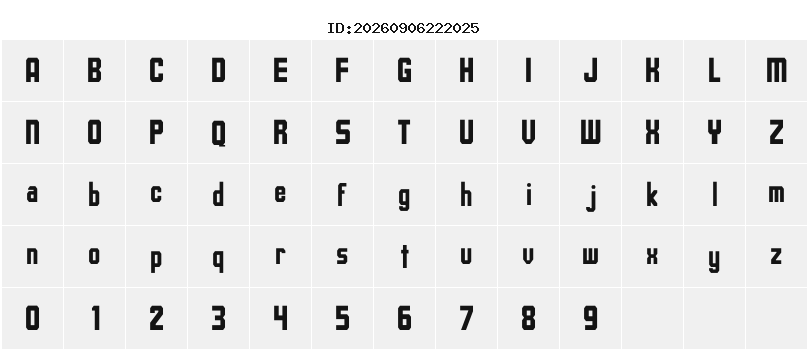
Upsilon Cn Bold Preview
• Font Name: Upsilon Cn Bold
• Full Font Name: Upsilon Cn Bold
About Upsilon Cn Bold.ttf
Upsilon Cn Bold.ttf is a modern, elegant sans-serif font designed for ultimate readability and visual harmony. Perfect for branding, headlines, web design, and print materials.